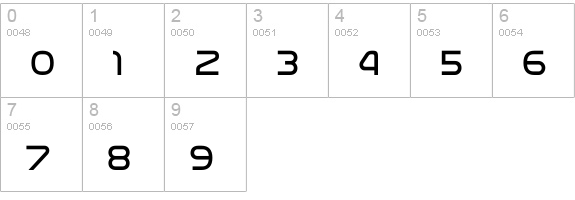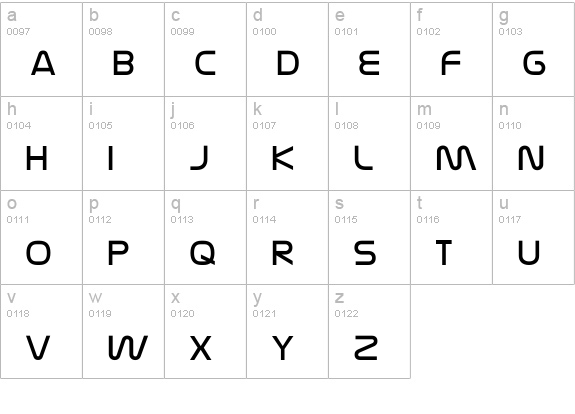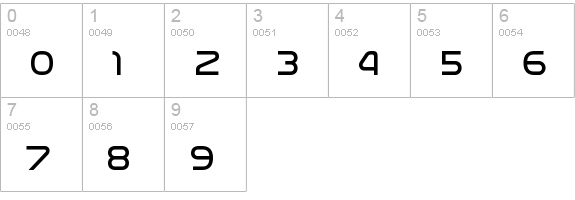
Nasalization Light is a refined, elegant variant in the Nasalization typeface family \xE2\x80\x94 well suited to elegant body text, refined sub-headings, and luxury branding.
Nasalization Light is a sleek and modern font that exudes a sense of sophistication and elegance. With its clean lines and contemporary design, this font is perfect for adding a touch of refinement to any project. The light weight of the font gives it a delicate and airy appearance, making it ideal for use in a variety of design applications. One of the best things about Nasalization Light font is that it is completely free to download. You can easily access this stylish font at FontsMarket.com and enhance your creative projects with its unique charm. Whether you're working on a website, a presentation, or any other design project, Nasalization Light font is sure to elevate your work and leave a lasting impression. Download it today and unlock the potential of this exquisite typeface.